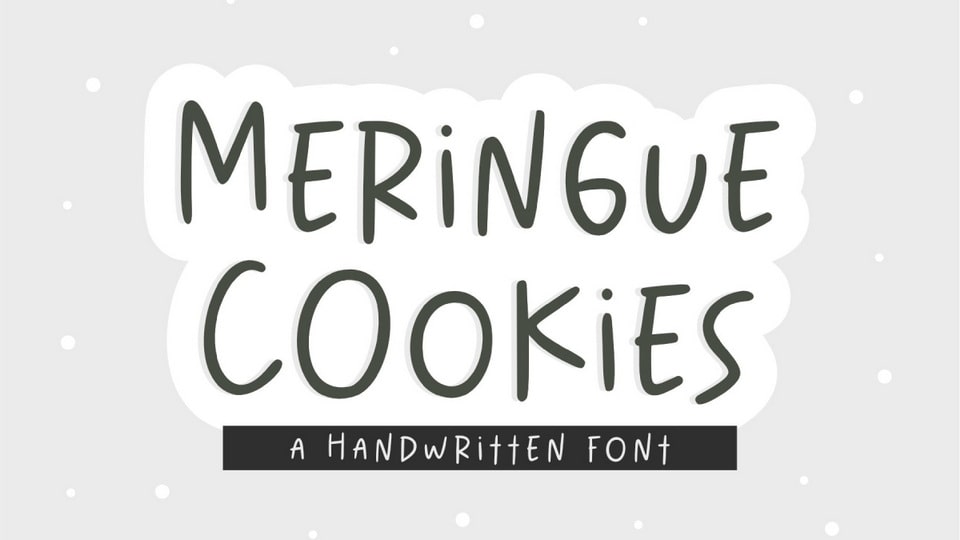
Download Meringue Cookies font, a handwritten typeface full of positivity and character. Meringue Cookies is a friendly hand-lettered typeface with charm and style.